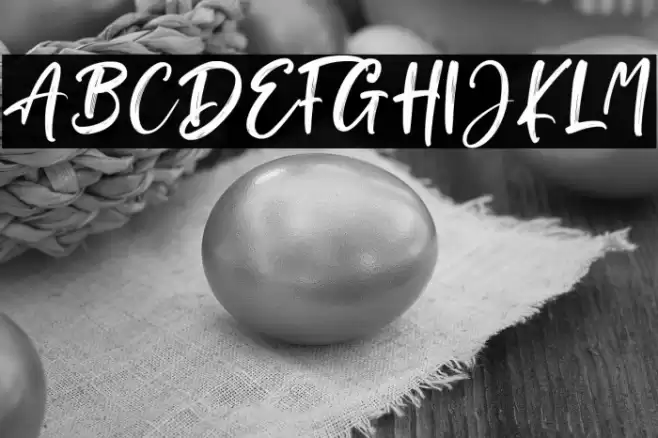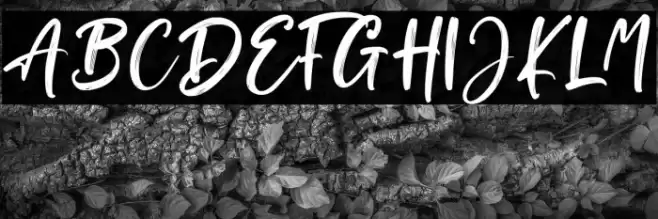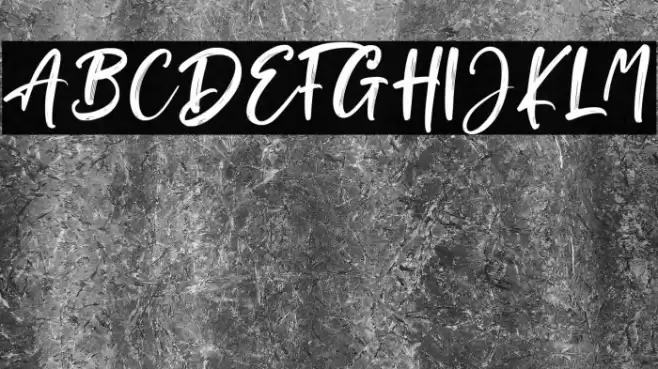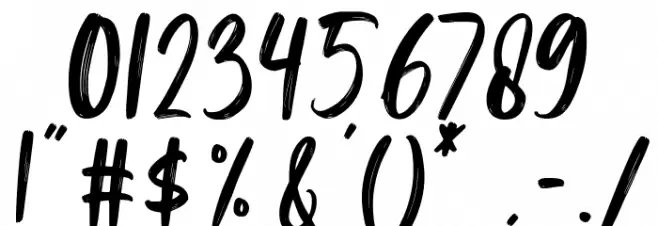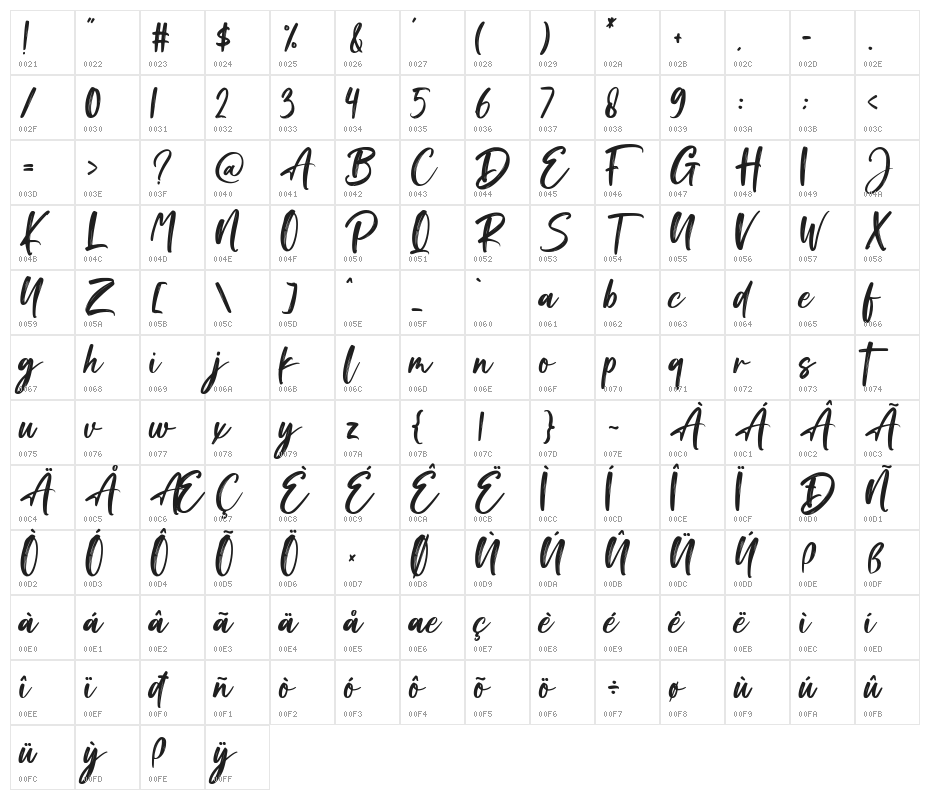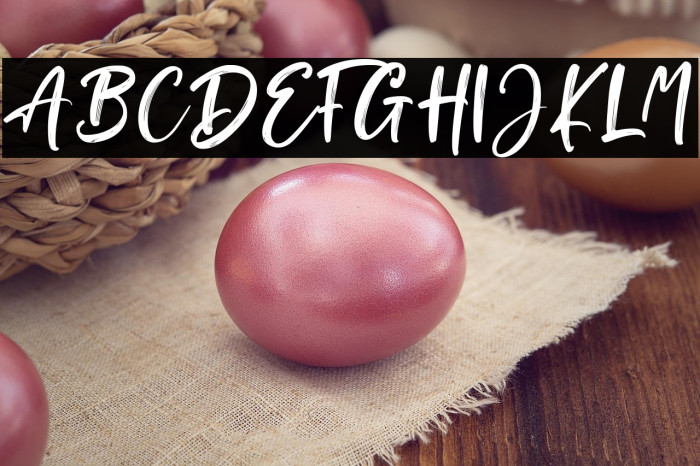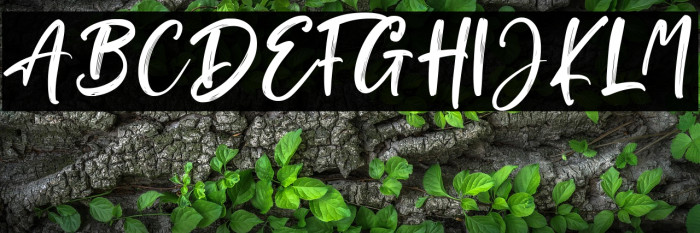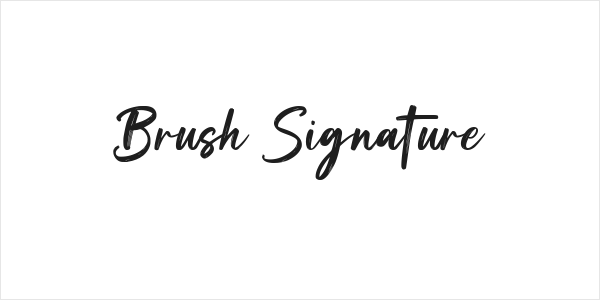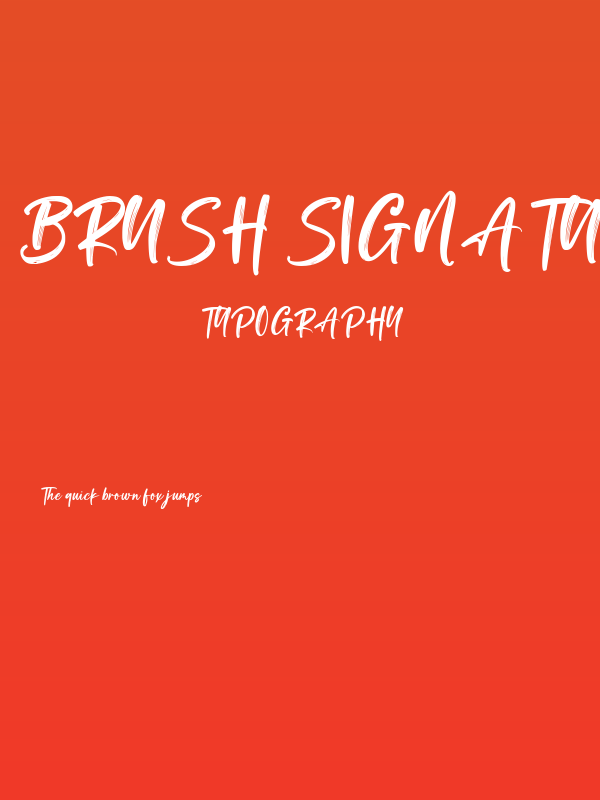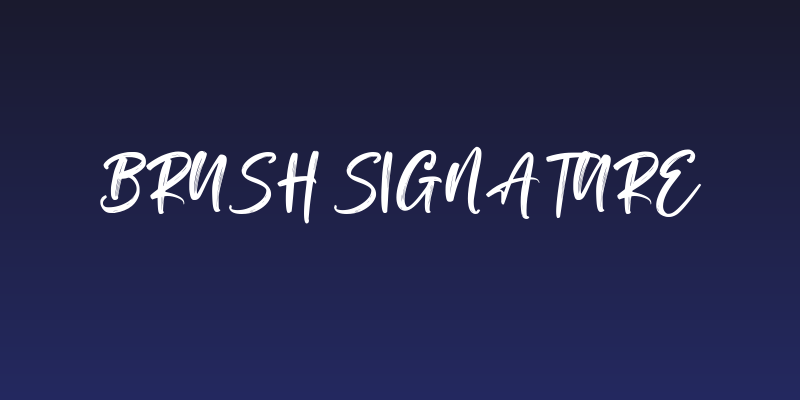
Brush Signature Font
Brush Signature Description
This font exudes a dynamic and expressive style, characterized by its brush-like strokes that give it a handwritten appearance. The letters are bold and fluid, with varying thicknesses that add a sense of movement and energy. The uppercase and lowercase letters maintain a consistent style, while the numerals and special characters complement the overall aesthetic. The font's organic flow and artistic flair make it ideal for projects that require a personal touch or a creative edge.
A bold, brush-style font with a dynamic and expressive handwritten look from Uncategorized fonts.
- Font: Brush Signature
- Proposed Projects: Ideal for branding, logo design, invitations, greeting cards, and artistic projects that require a personal and creative touch.
- Use Case: Logos, Headlines, Artistic projects